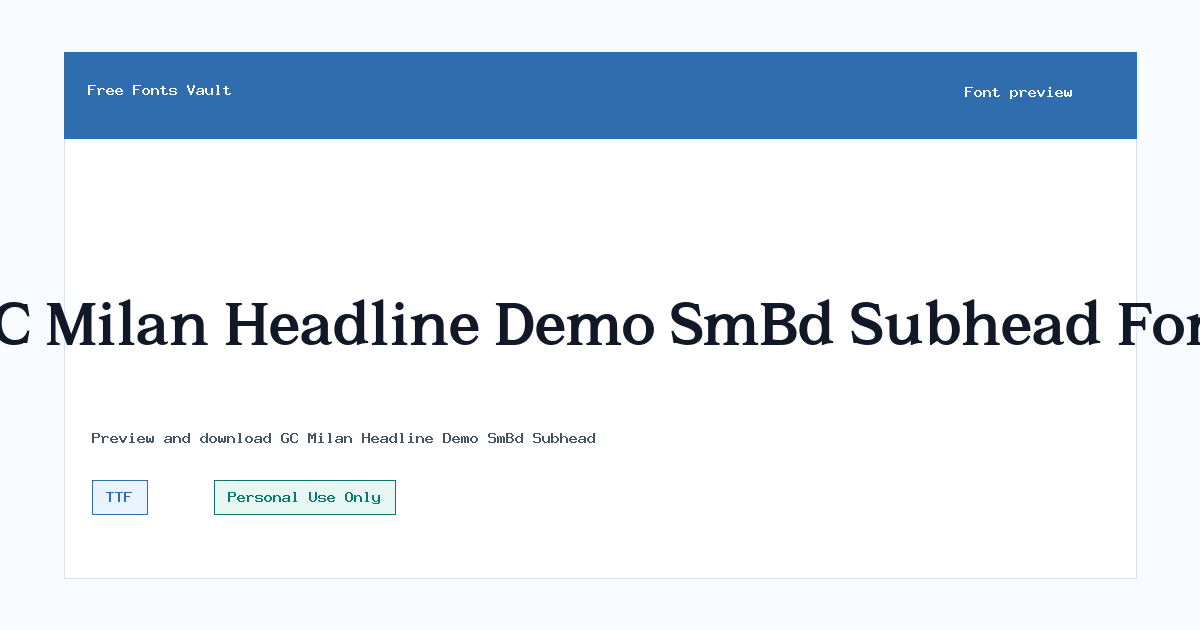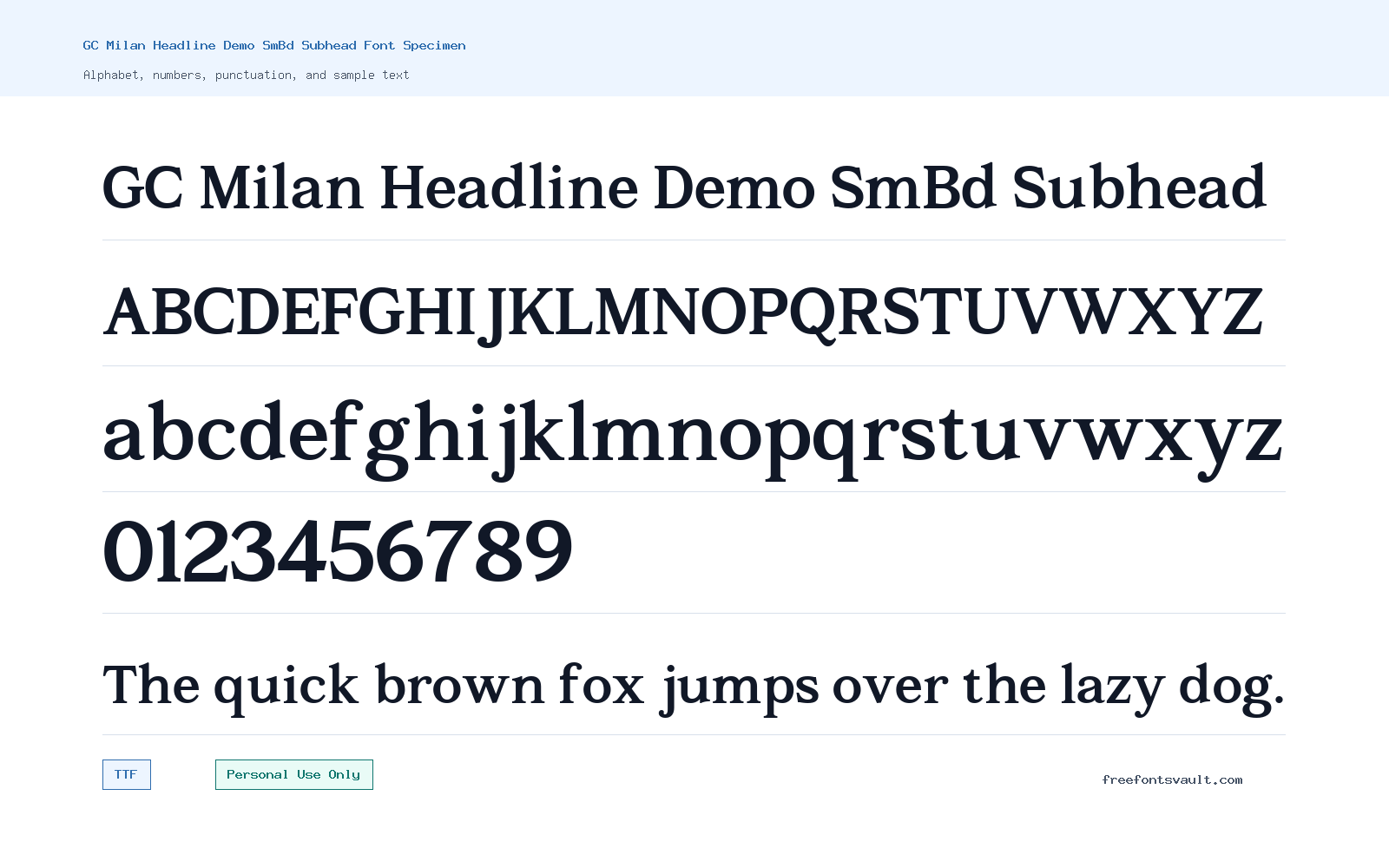
GC Milan Headline Demo SmBd Subhead
- Designer Zainaldi Ibrahim of Glyphonic
GC Milan Headline Demo SmBd Subhead is a headline-focused serif font with a demo, personal-use license. It is best treated as a display face for short text, titles, and preview testing rather than long reading copy.
GC Milan Headline Demo SmBd Subhead is part of the GC Milan Headline naming line and comes in a TrueType font file. The name points to a semibold subhead style, so it is a practical choice when you want a stronger serif voice without using an overly heavy title weight. Use it where the words need structure and presence: article headers, editorial-style graphics, poster text, cover mockups, social layouts, and branding tests for personal projects.
Because this is a headline or subhead-oriented demo font, it will usually work best in short settings. Try it first with your own headline, a few uppercase words, and a mixed-case phrase in the preview tool. Check spacing around narrow letters, punctuation, and longer names before using it in a finished layout. For body text, pair it with a calm sans serif or a simple text serif so the headline can stand out without making the whole design feel too dense.
- Headline and subhead style suited to short, prominent text
- Editorial headlines, magazine-style titles, and poster headings
- Personal design mockups, social graphics, and display typography tests
GC Milan Headline Demo SmBd Subhead is credited to Zainaldi Ibrahim of Glyphonic.
What is this font best used for?
It is best for short display text such as headlines, subheads, posters, cover designs, social graphics, and personal mockups.
Can I use this font for body text?
You can test it, but the name and style suggest headline or subhead use. For long paragraphs, pair it with a more neutral reading font and keep this one for emphasis.